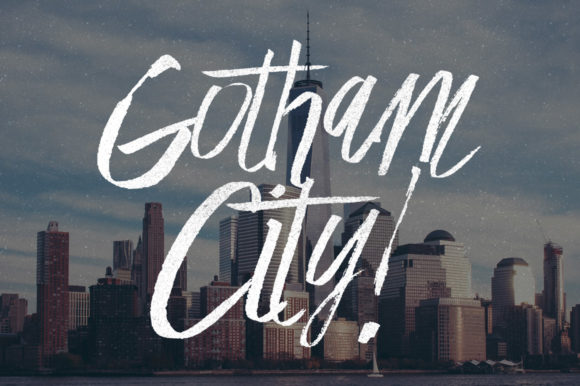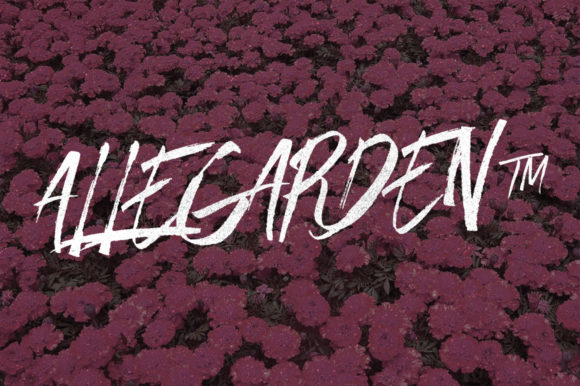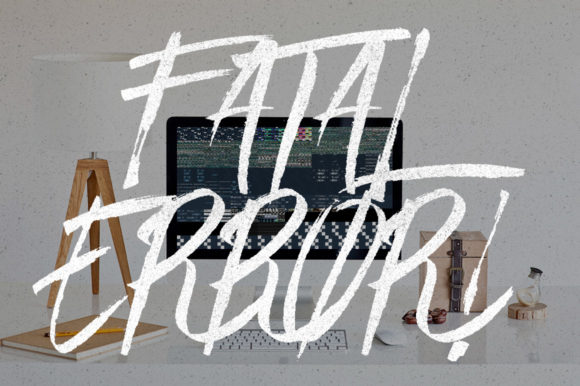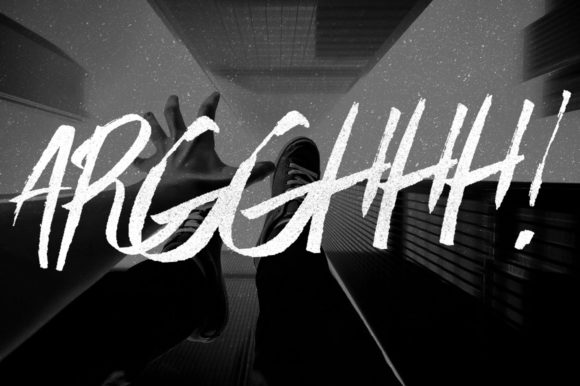
About Easy Font
Introducing Easy, a stunning handwritten font created through the perfect pairing of a brush pen and pencil. This delightful combination gives Easy its endearing and authentic appearance, making it the ideal choice for bringing any DIY project to life!
With its charming and handmade feel, Easy exudes a sense of warmth and creativity that will add a personal touch to your designs. Whether you’re working on scrapbooking, crafting, journaling, or any other DIY endeavor, Easy will be there to elevate your projects to new heights.
The unique blend of the brush pen and pencil creates a harmonious balance between elegance and playfulness, making Easy incredibly versatile. It’s equally suitable for whimsical and lighthearted designs as well as more refined and sophisticated projects.
The organic strokes and irregularities in the letterforms of Easy give it a distinctive and authentic character, setting it apart from standard fonts. Each letter feels like a work of art, adding a touch of creativity and personality to your designs.
Bring your DIY projects to life with Easy’s handcrafted charm, as it effortlessly infuses them with a sense of love and care. Whether you’re designing invitations, greeting cards, or custom prints, this font will leave a lasting impression on your audience.
Easy is designed to be both approachable and eye-catching, making it suitable for a wide range of applications. From social media graphics to personalized gifts, Easy will captivate your audience and make your projects shine.
As you work with Easy, you’ll notice how it transforms your DIY projects into heartfelt creations, allowing you to express yourself in a way that is uniquely yours. Its versatility and beauty make it a valuable asset in your font collection, ready to be called upon for any creative endeavor.
In conclusion, Easy is a gorgeous and unique handwritten font that beautifully captures the endearing and authentic qualities of a brush pen and pencil pairing. With its handmade charm and versatility, Easy is the perfect companion for bringing any DIY project to life. Let this font be your go-to choice for adding a touch of love and creativity to your designs, and watch your projects flourish with character and authenticity!